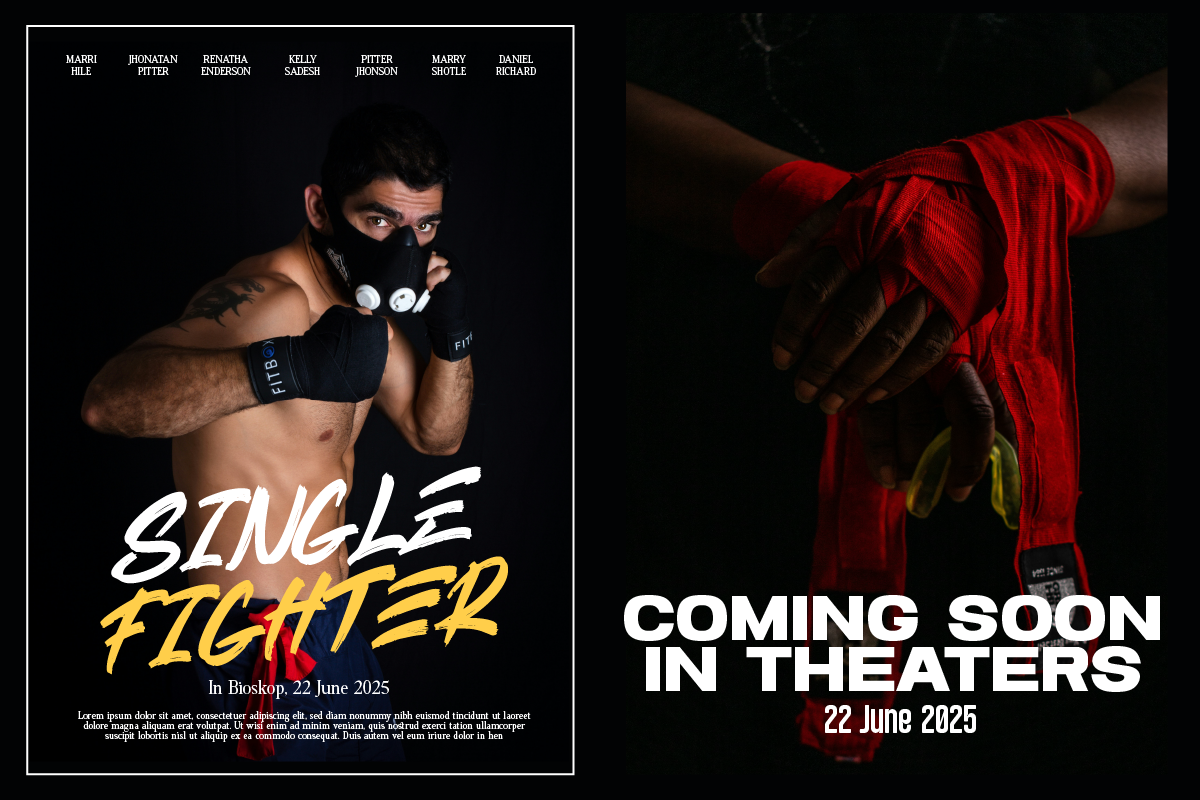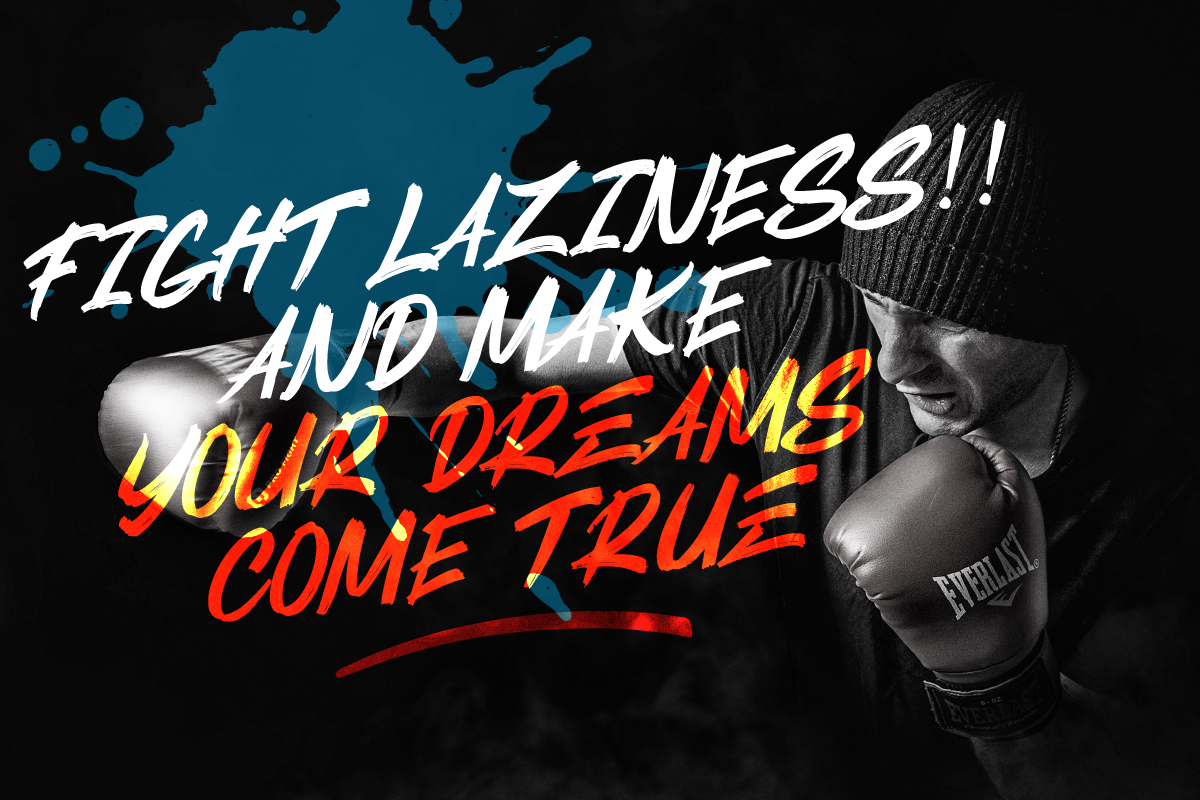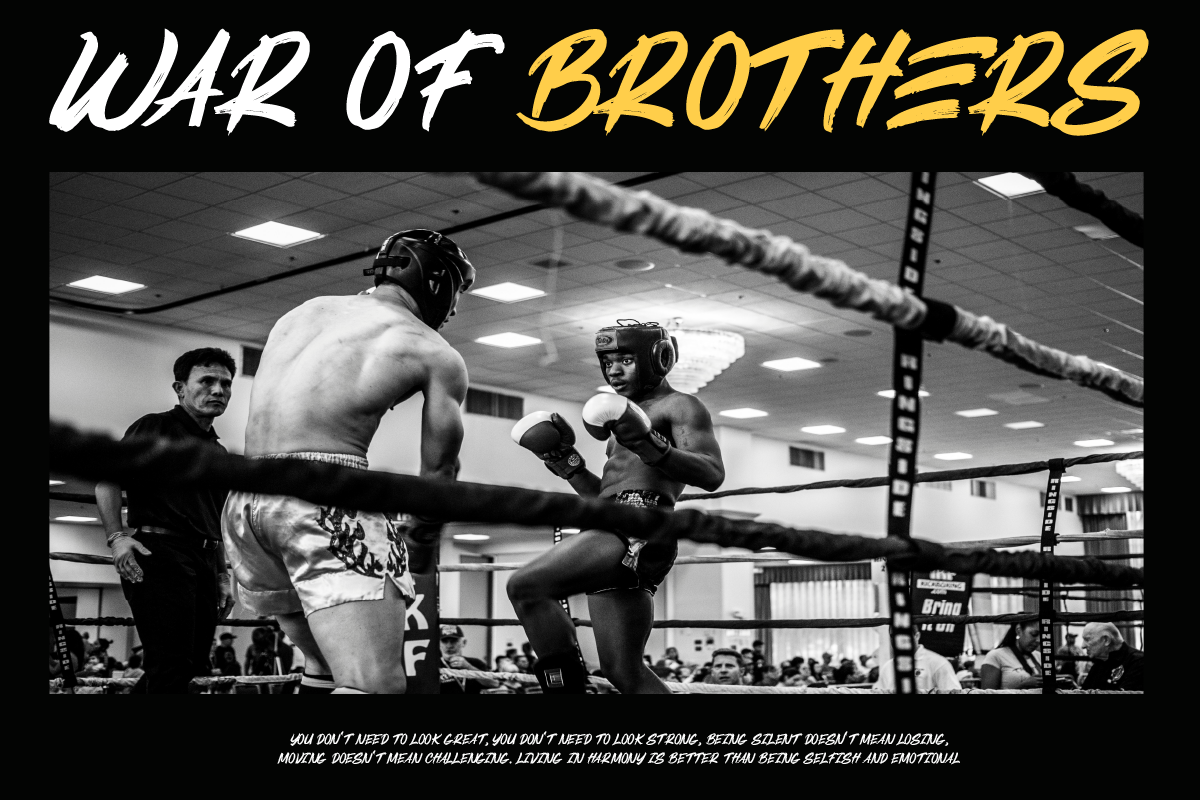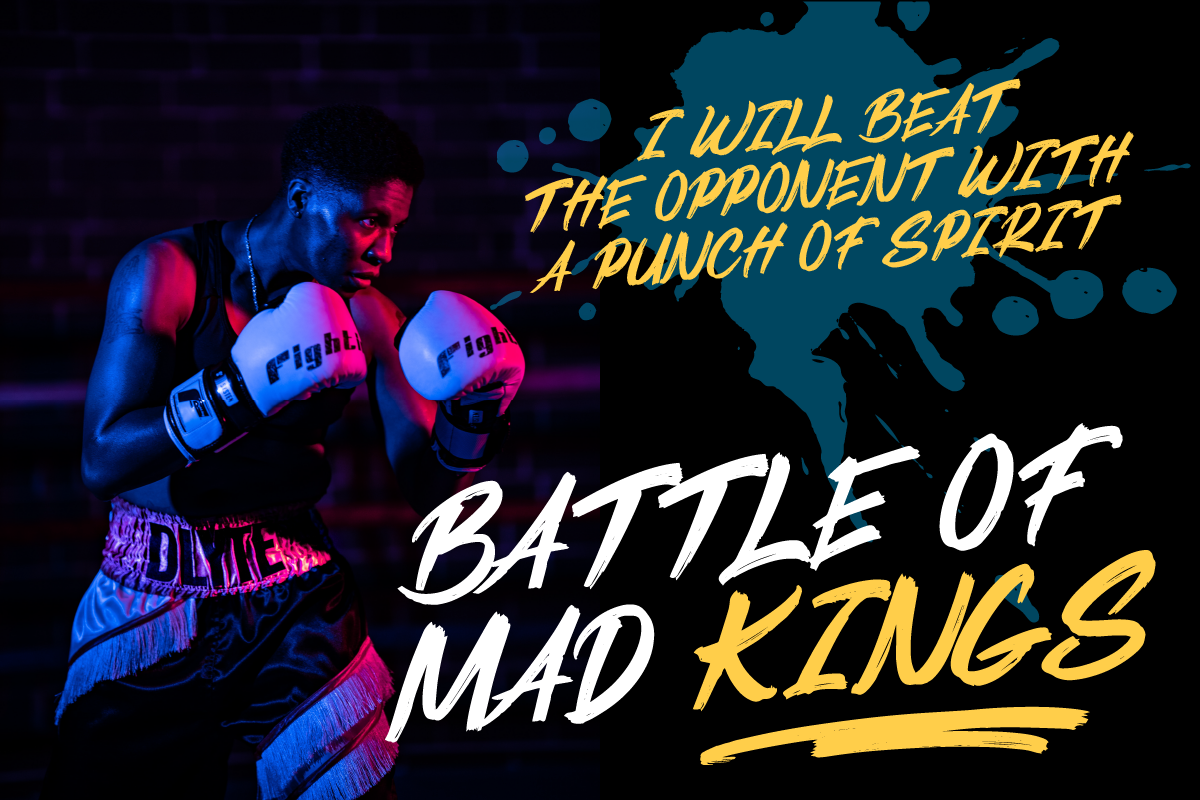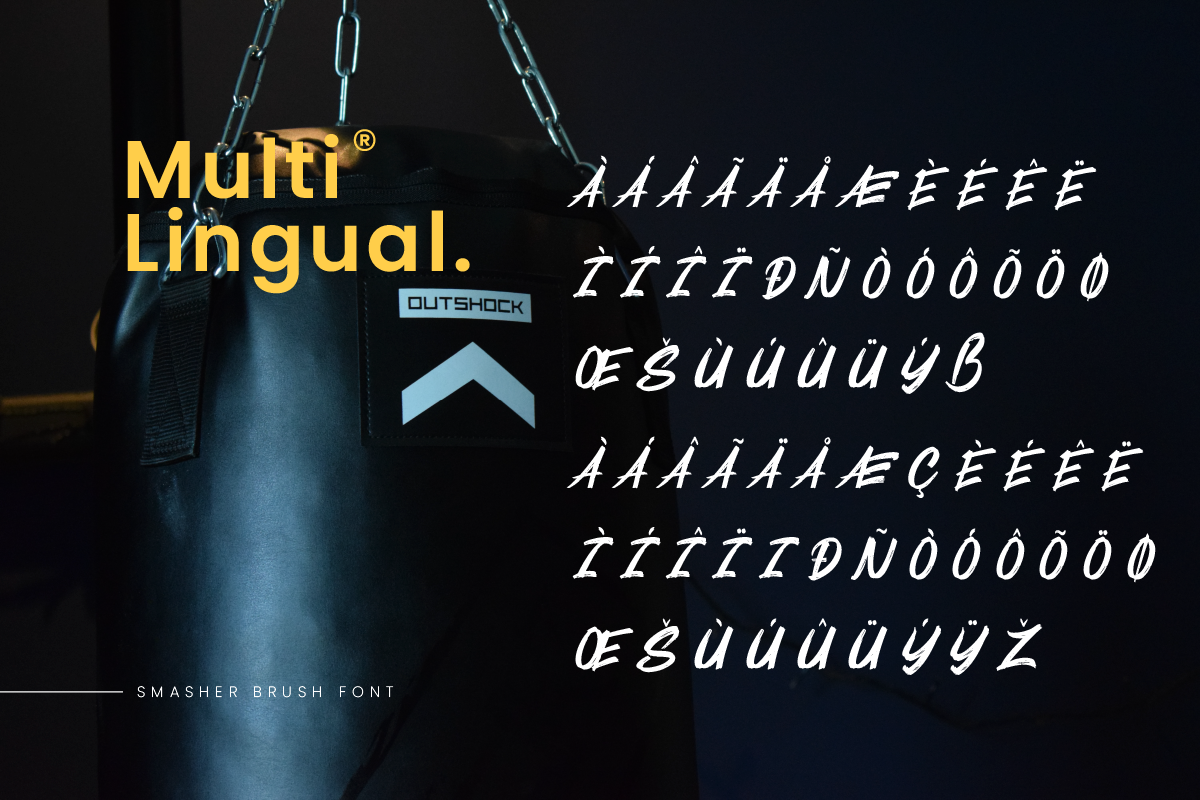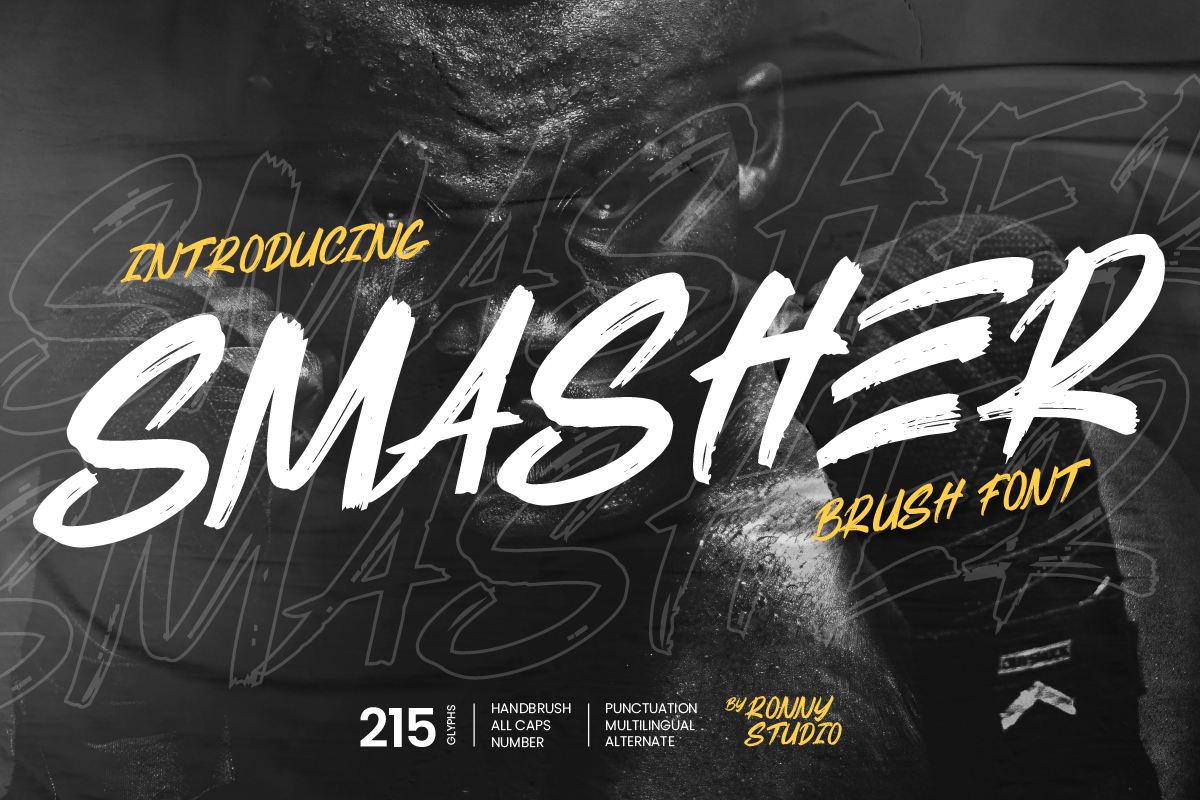
Smasher Brush Font is a typeface that has a strong and energetic touch. With its characteristic rough brush strokes and thick, prominent lines, this font gives off a bold and vibrant impression. Suitable for titles that want to emphasize courage and strength in graphic design, posters or branding.